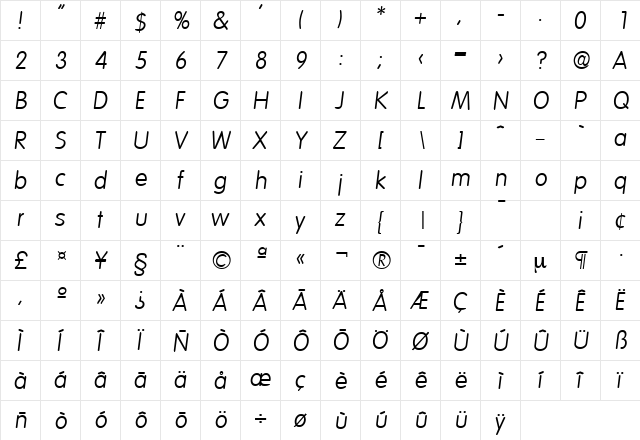
Volkswagen-Serial-Light RegularItalic Font Preview
Design Context for Volkswagen-Serial-Light Typeface
Volkswagen-Serial-Light is a composed and adaptable typeface that performs quietly and consistently across a wide range of design contexts. Its italic angle brings a sense of urgency and motion to the letterforms. The delicate stroke weight brings airiness and refinement to layouts.